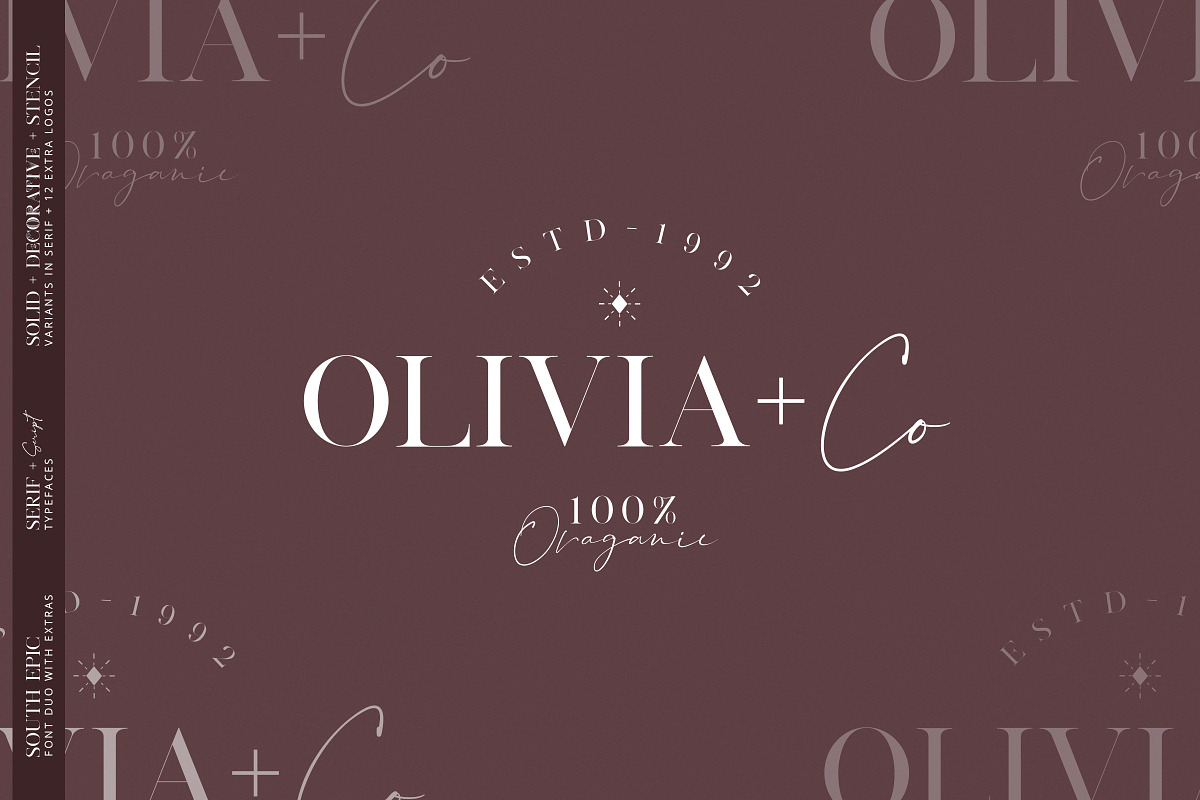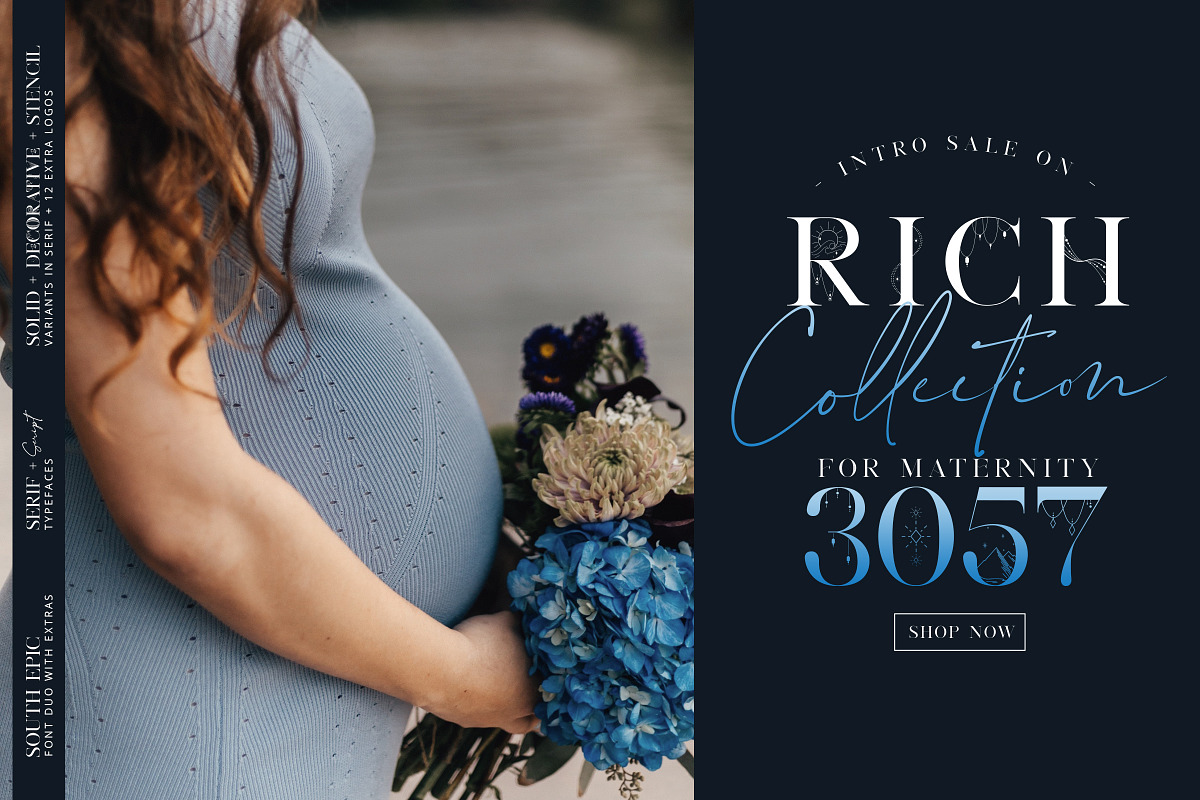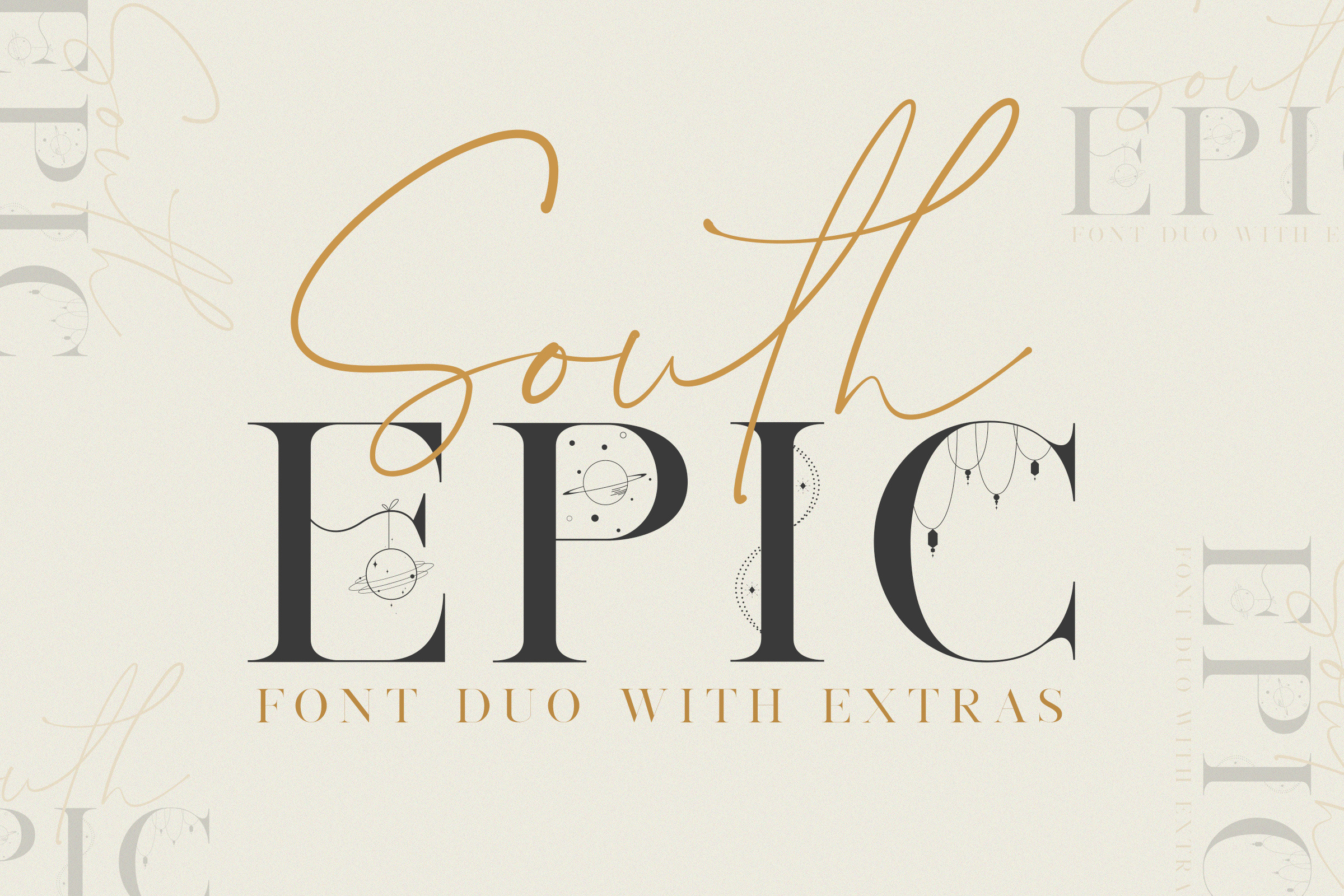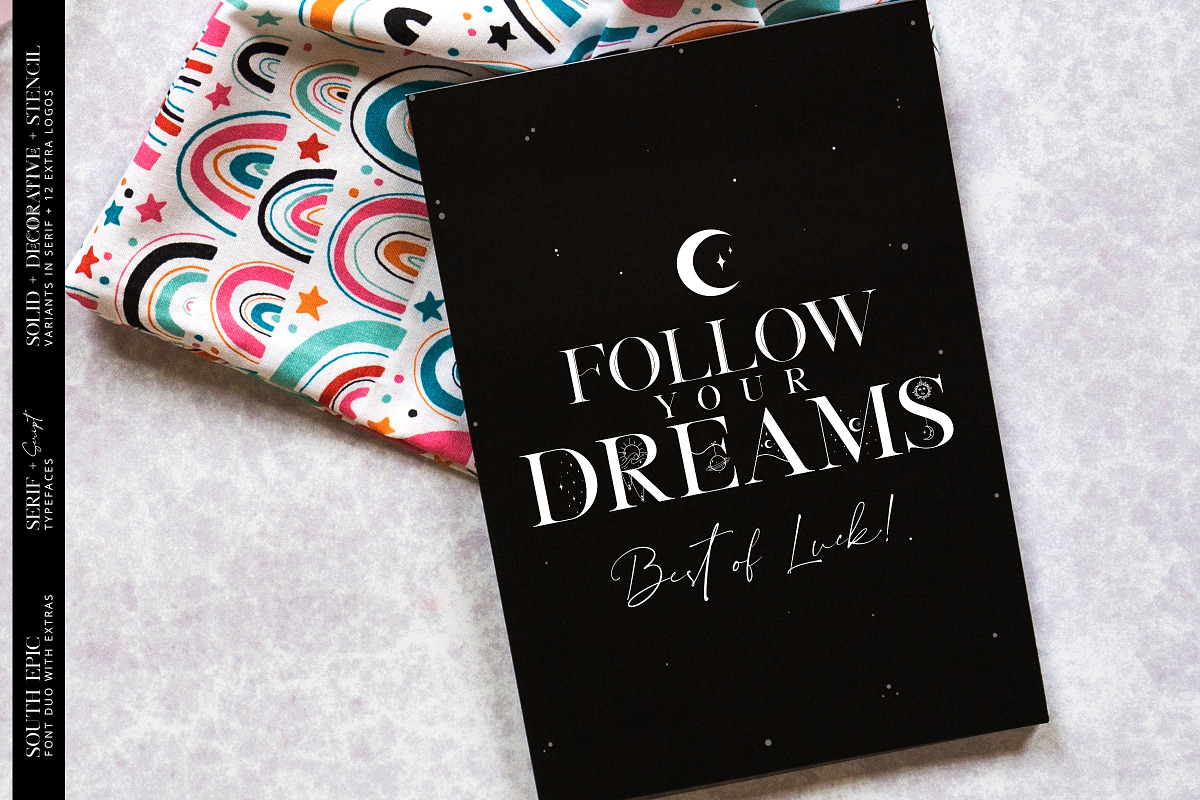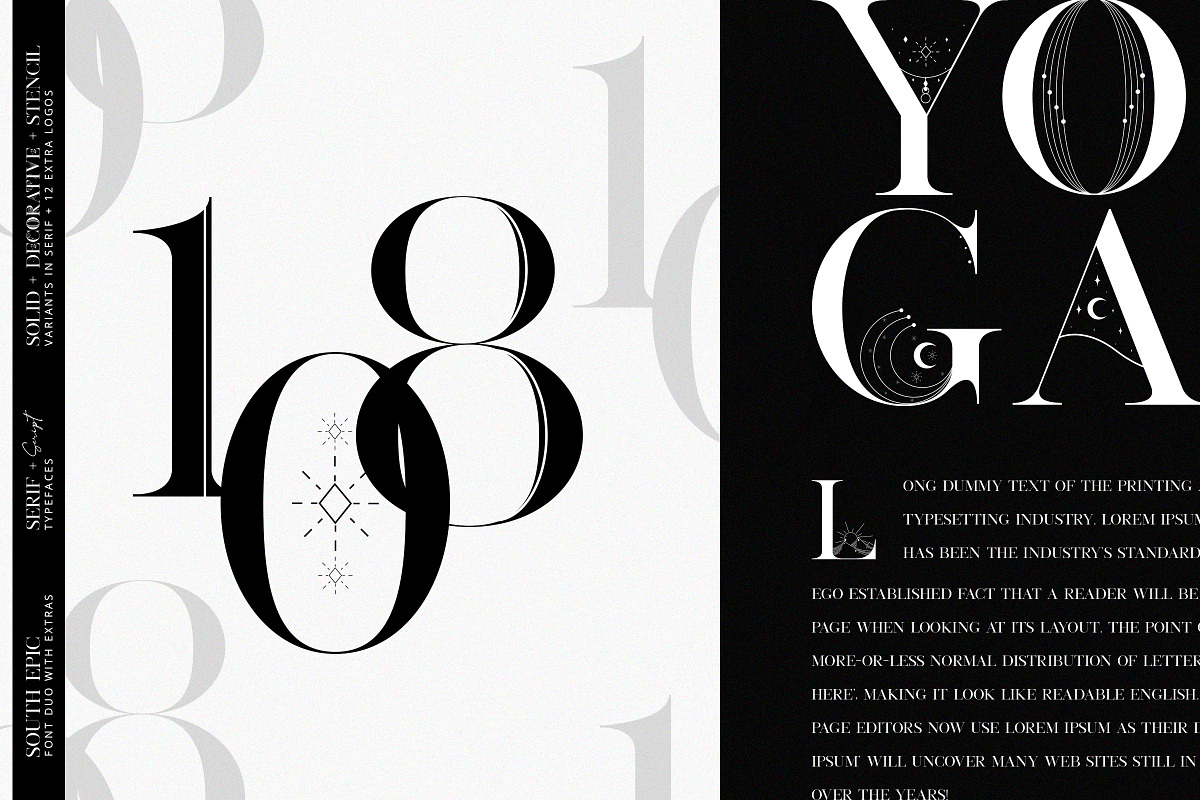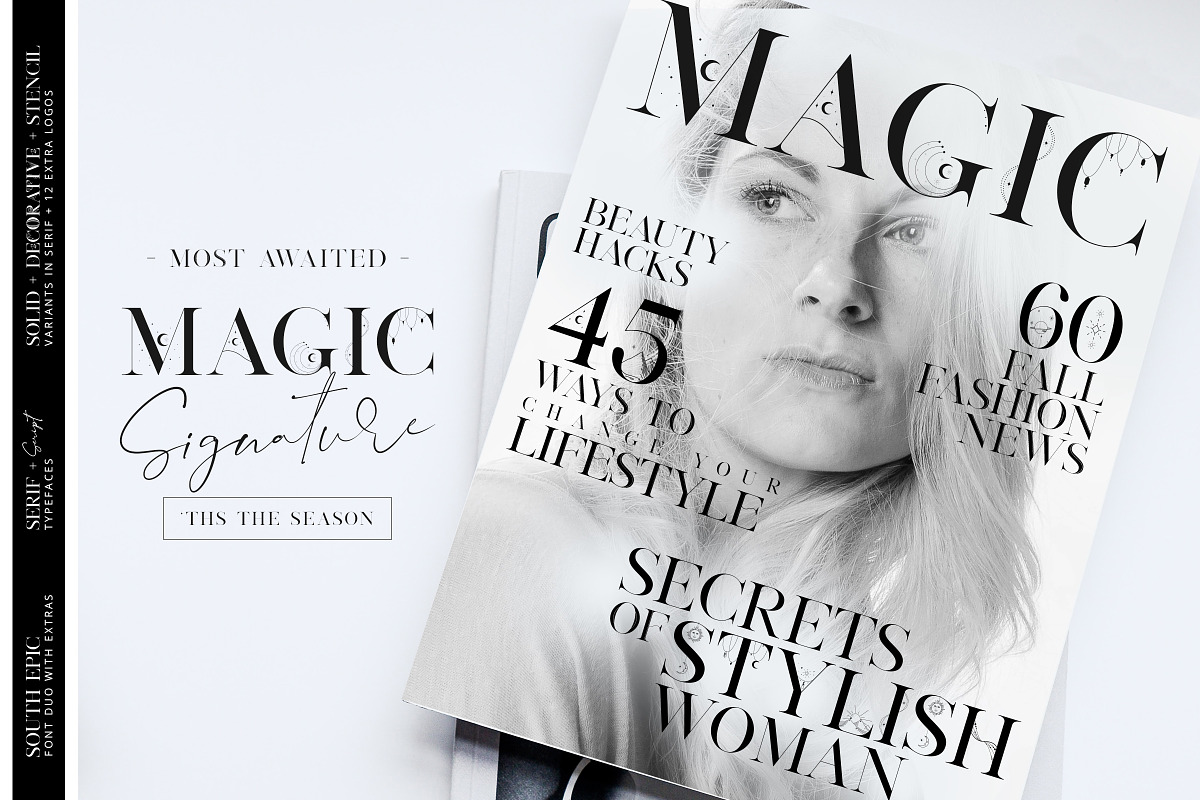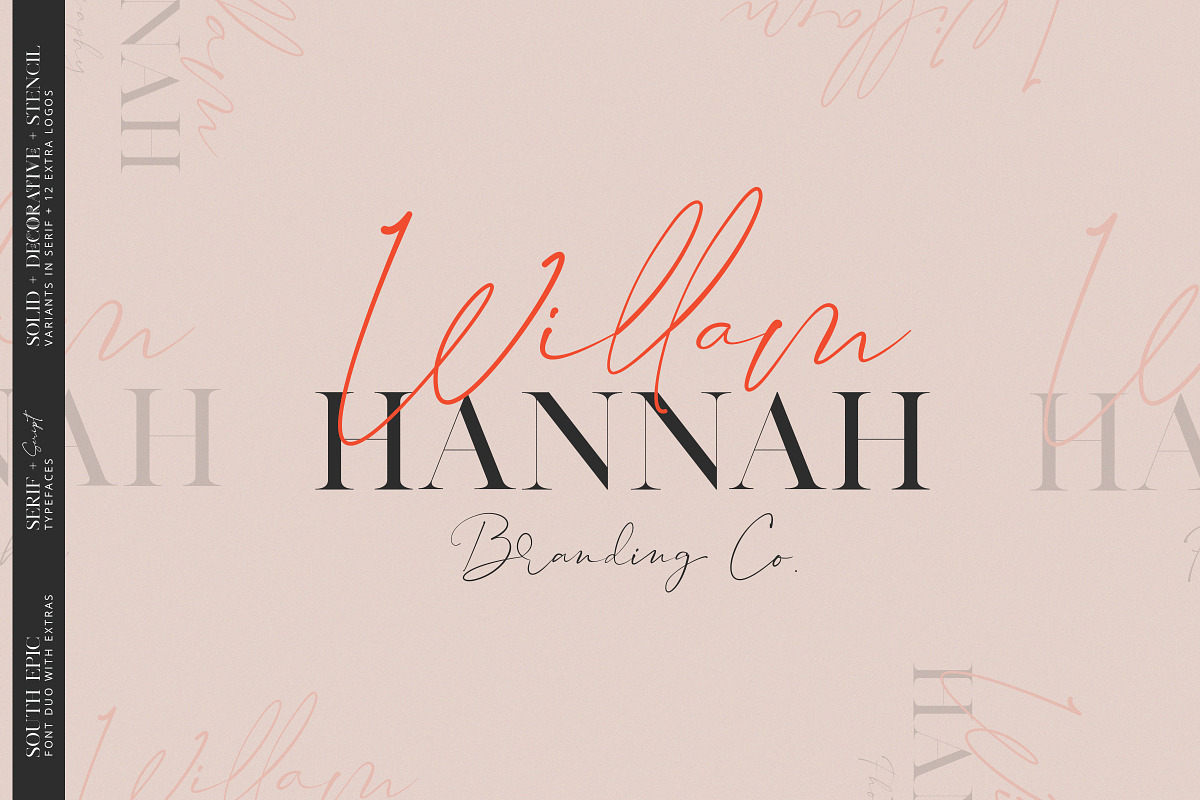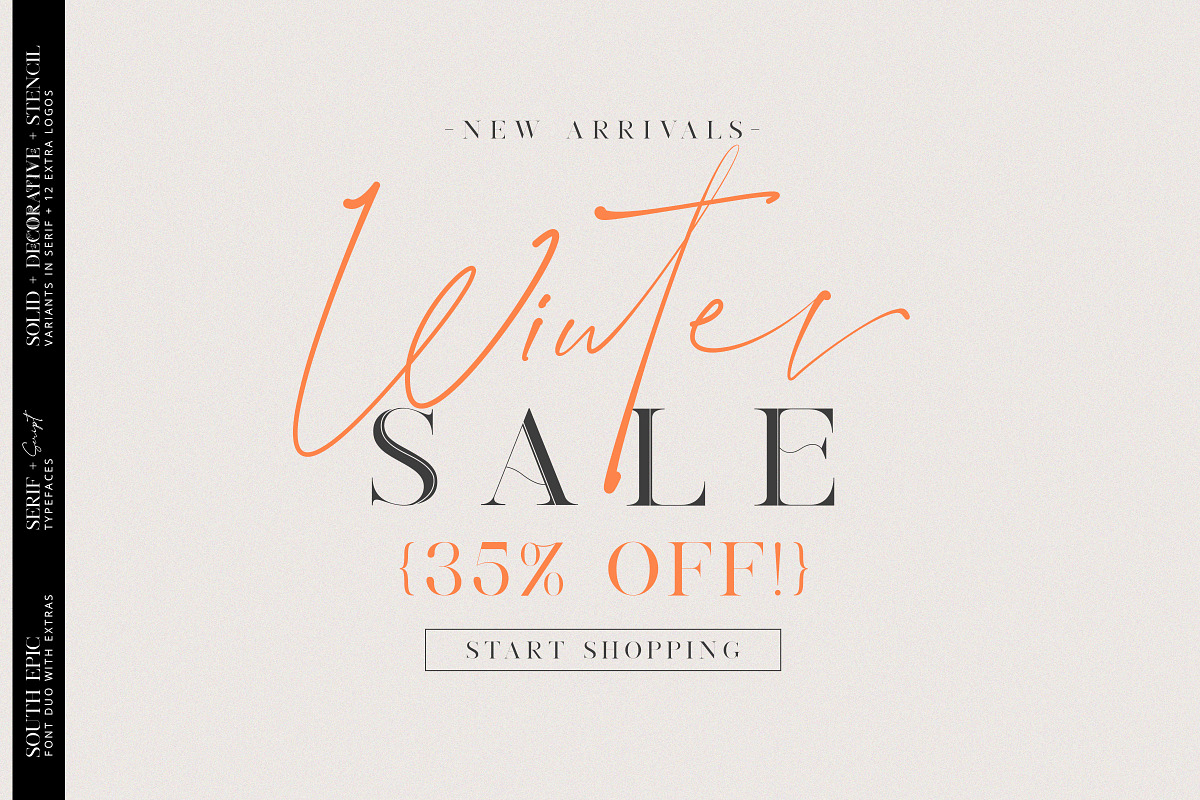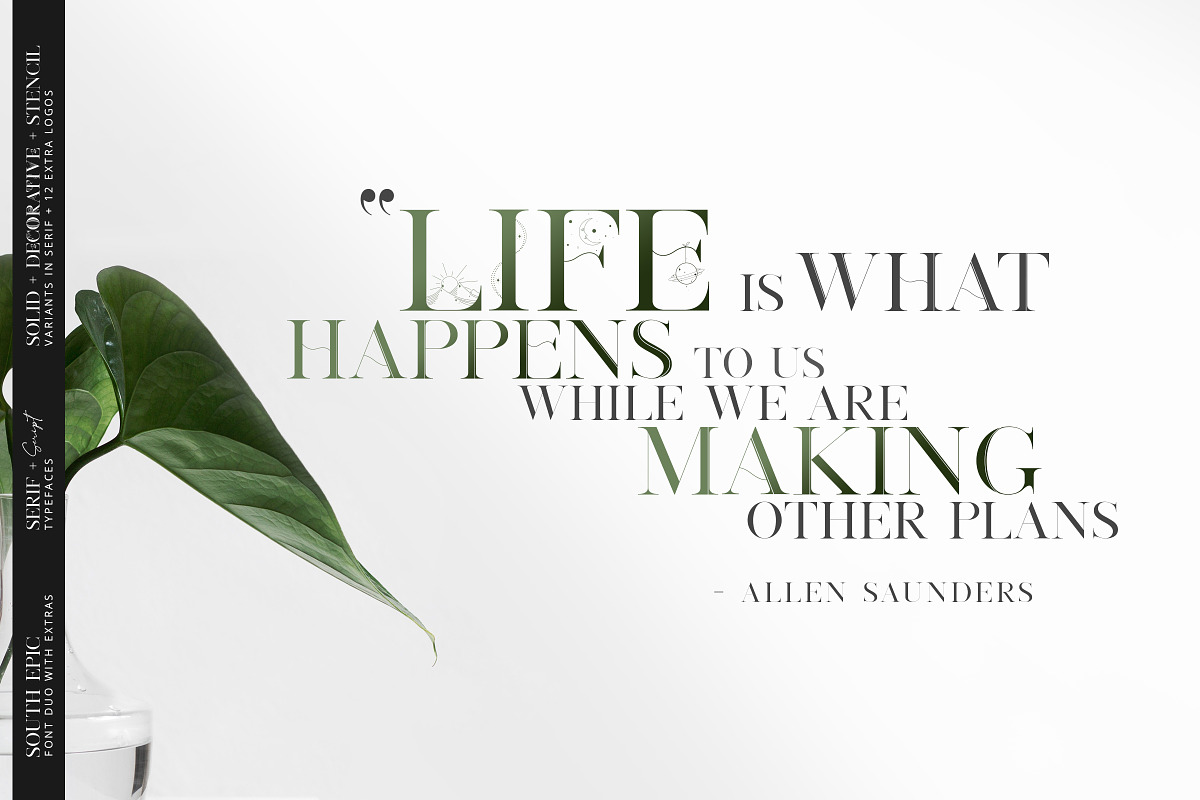
South Epic Dream Font Duo + Logos
South Epic is an font combination of Serif and Script. Welcome to the world of dreaming fonts to make your typographic dream come true. South Epic is a fully decorative serif font featuring dreamy items, with epical items from each character you can make your new design. You can make your own branding or business branding with these amazing font combo. Not just decorative you will also get a stencil and solid version with a serif font and script font to add an extra look to your typography. Also as a bonus, you are getting 12 fully editable Adobe Photoshop and Illustrator logo files.
- Font Features:
- Multilingual features for non-western language
- Accurate kerning for all serif family
- Amazing ligatures to look natural in script font
- Alternative characters for script lowercase alphabets
- Serif fonts are Solid, Stencil, and Decorative